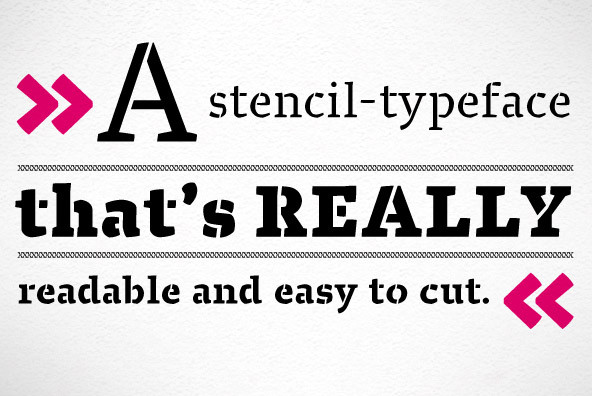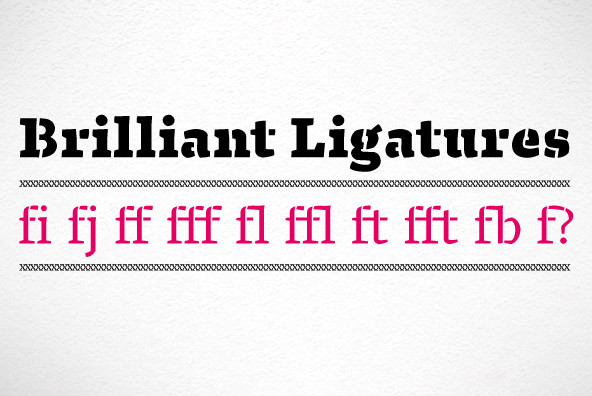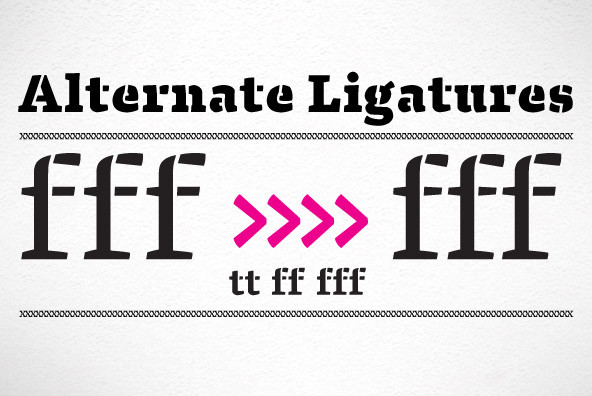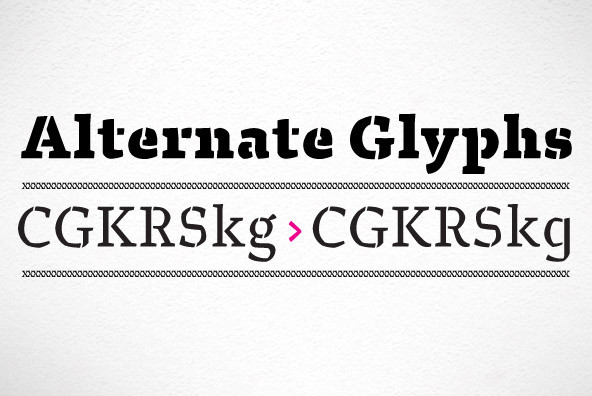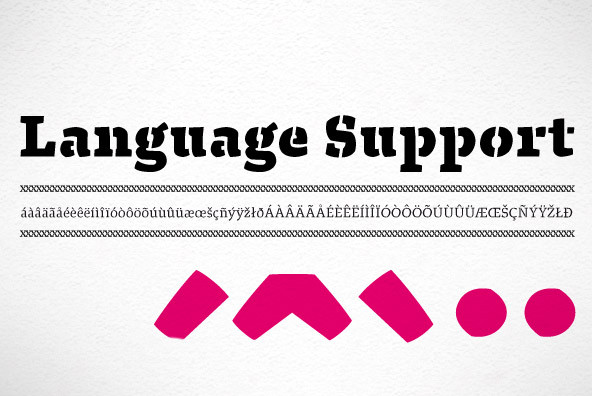
Brilliant
Designed by Igor Labudovic, Brilliant is a modern antiqua typeface that includes three weights. It is both very readable and easy to cut. The corners in the typeface makes it easy to cut, but doesn't disturb the readability. Brilliant is perfect for big sizes, headlines and characterful sublines.